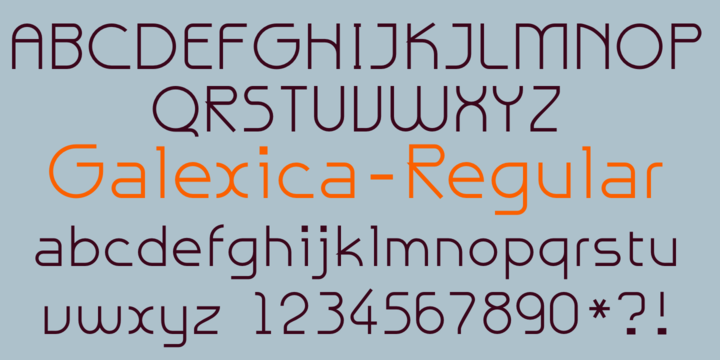
Galexica
Design Credits
Designed by: Robert Schenk
Designed when: 1992
Design owned by: Ingrimayne Type
Galexica
Galexica is a geometic, modernistic, sans-serif tyepface.